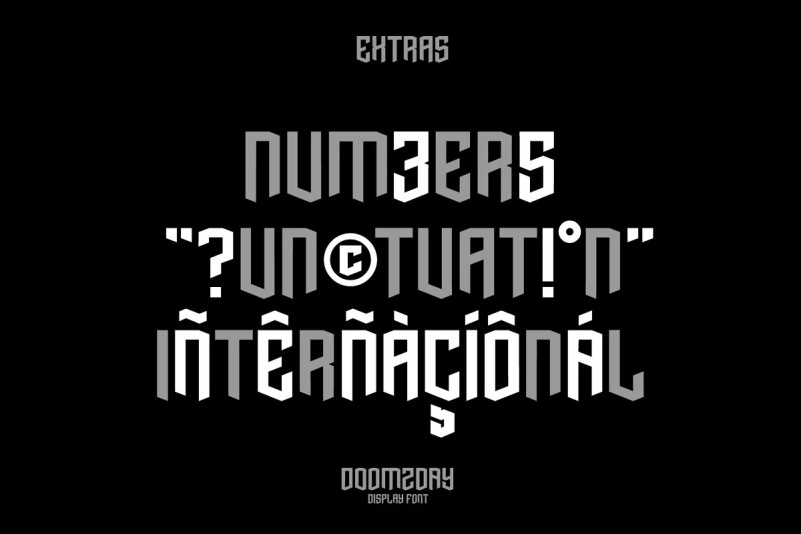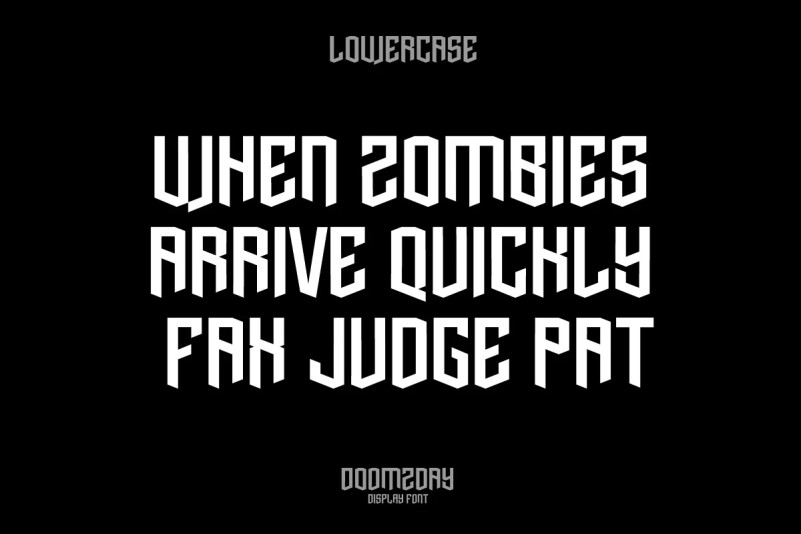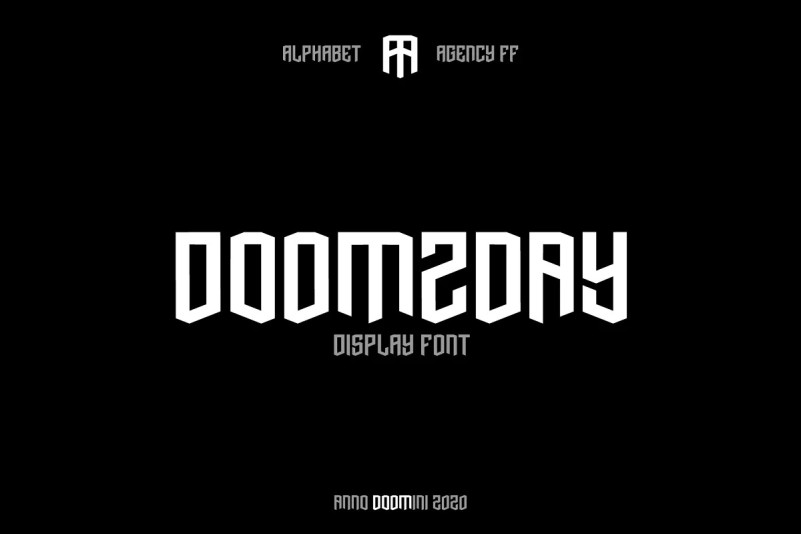
Doomzday Font
Doomzday Font is a display font designed for use in promotional and advertising design. Ideal for use in music themes such as rock and metal.